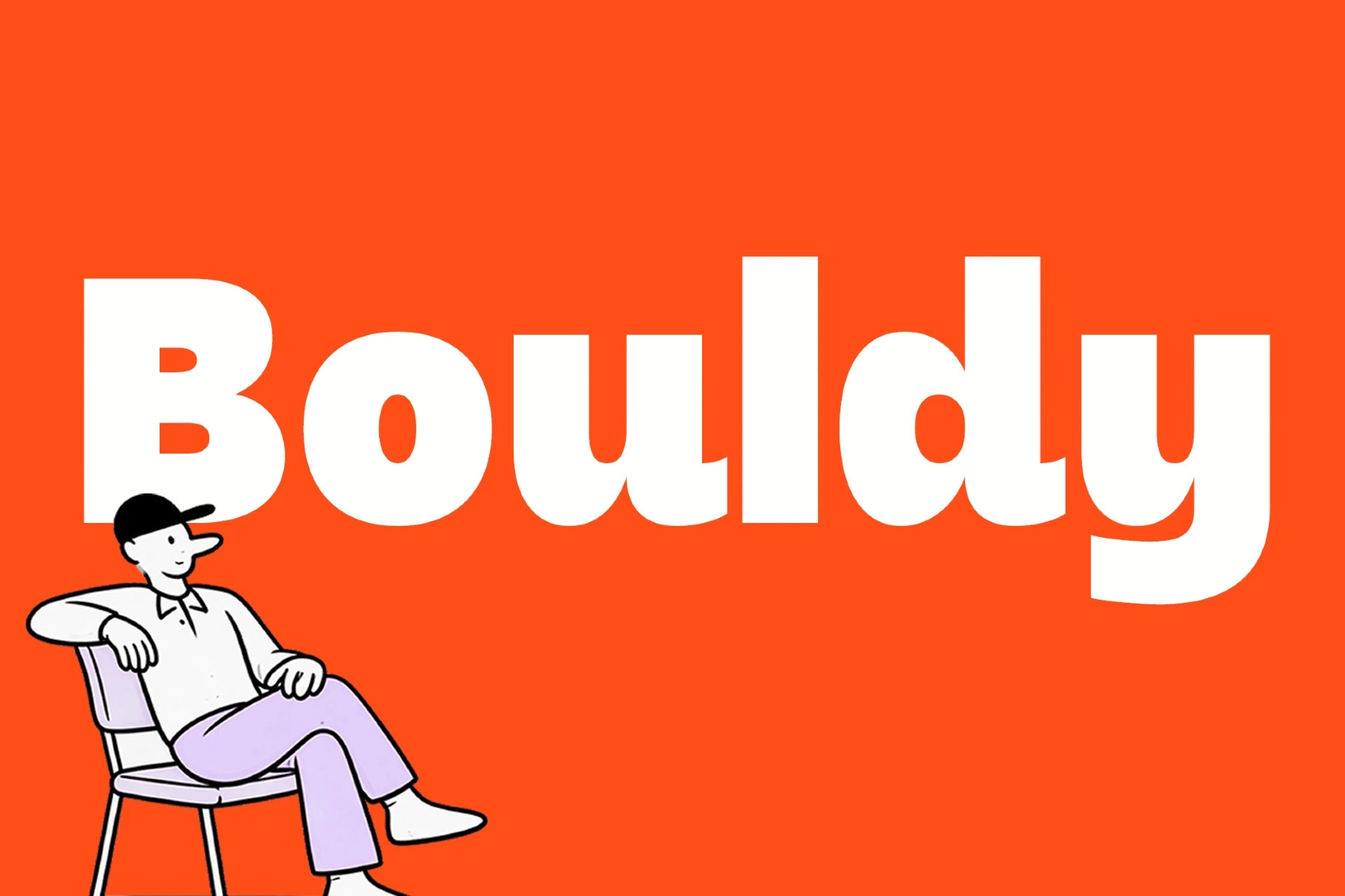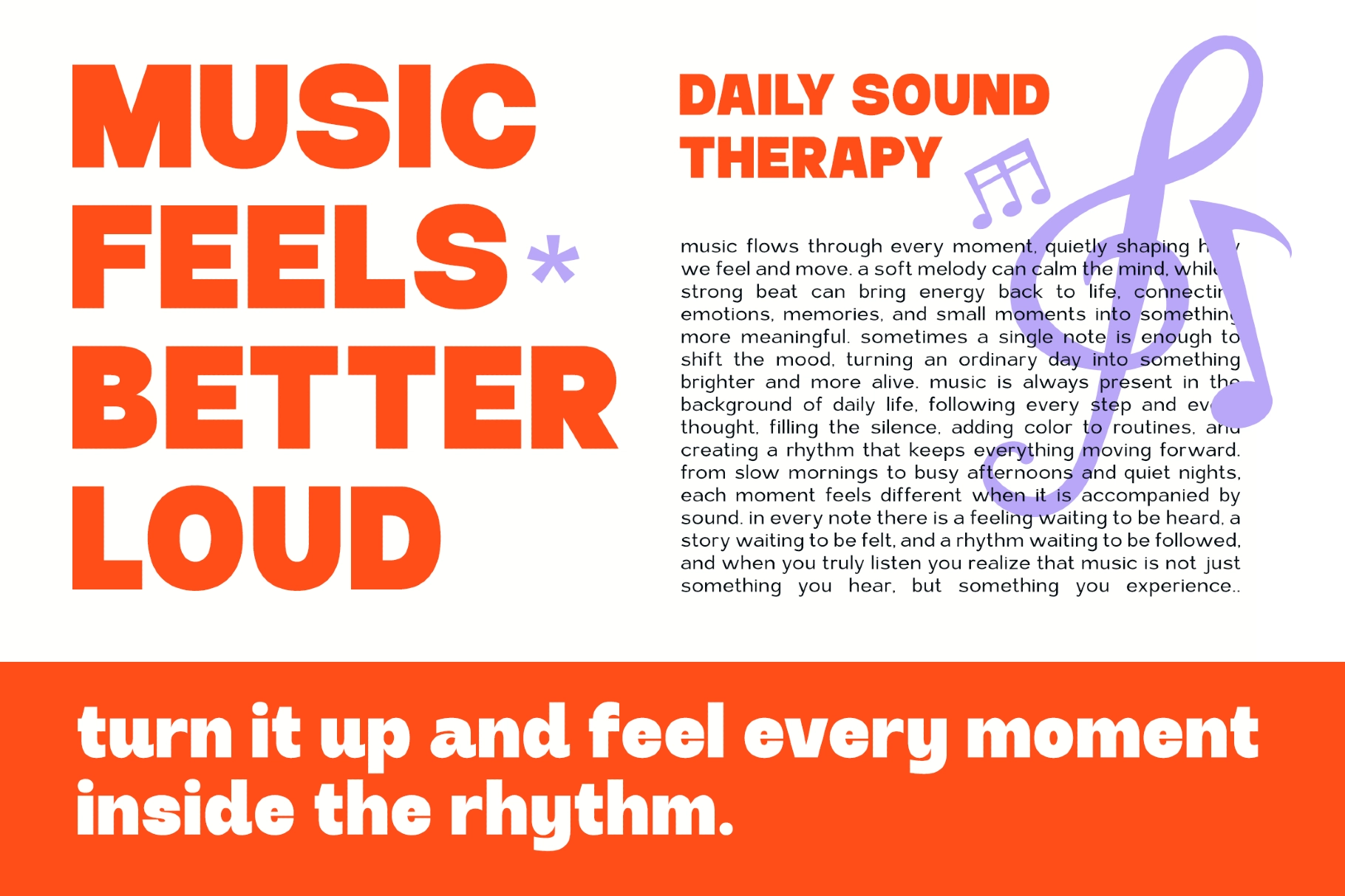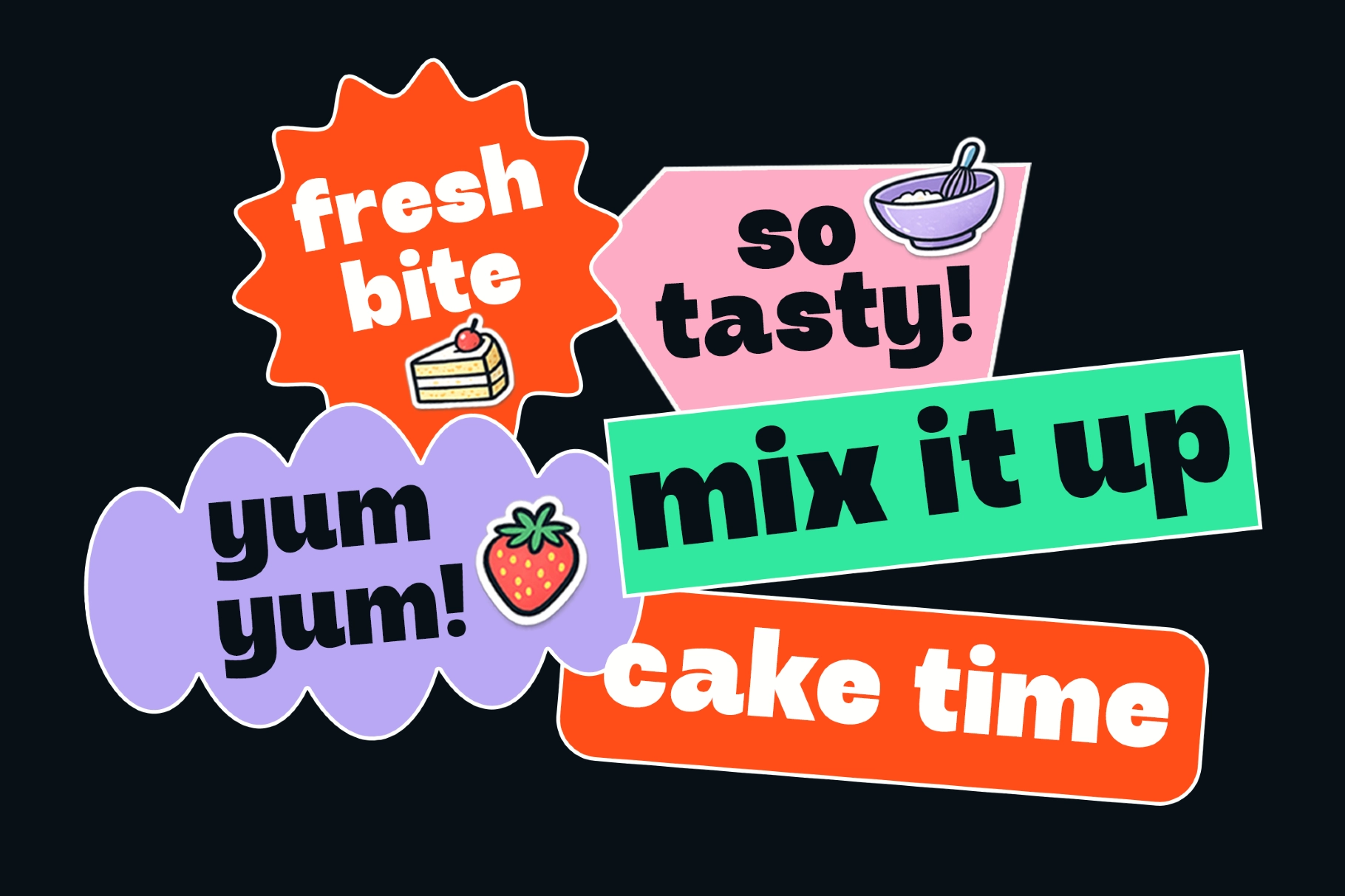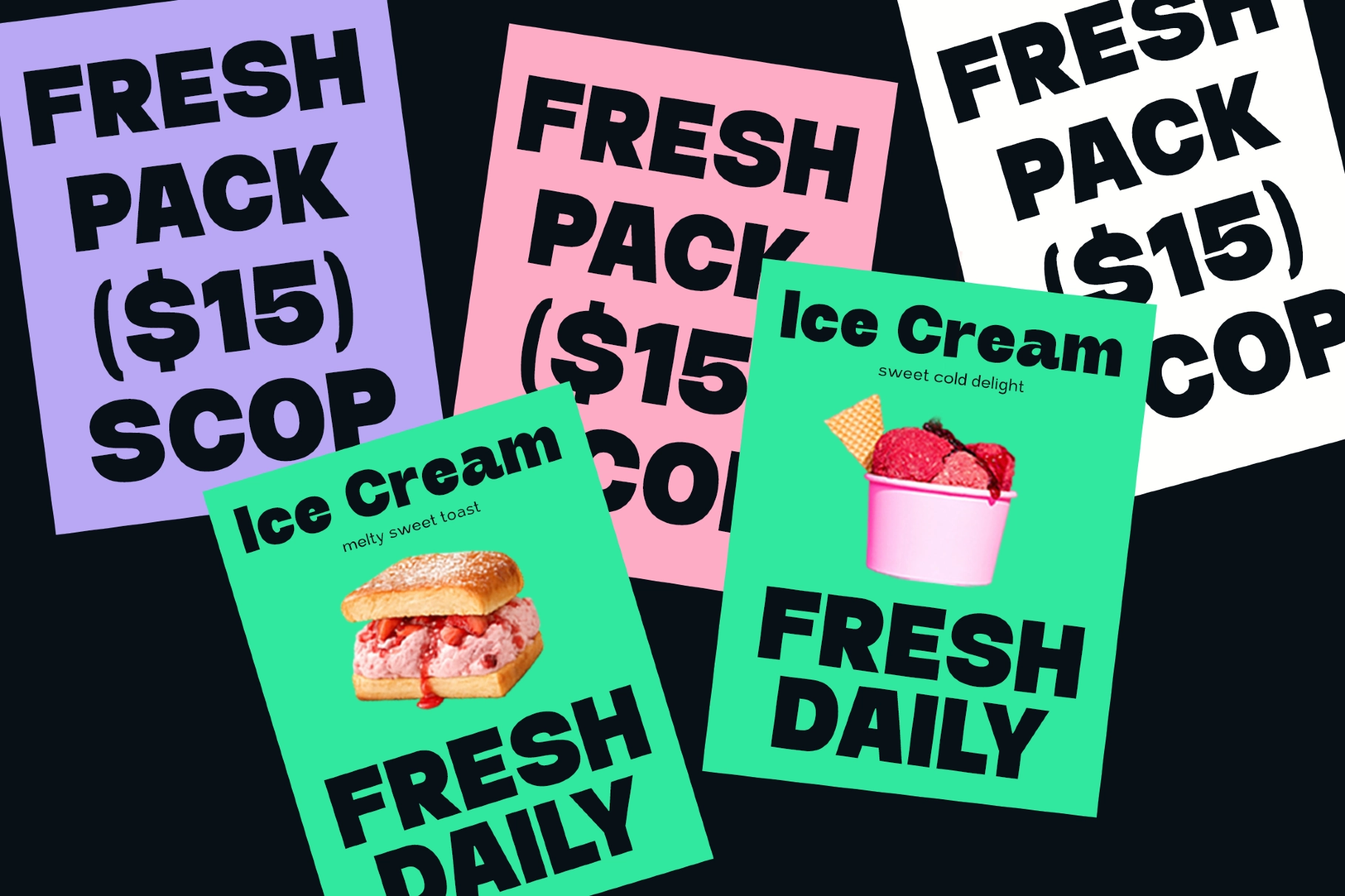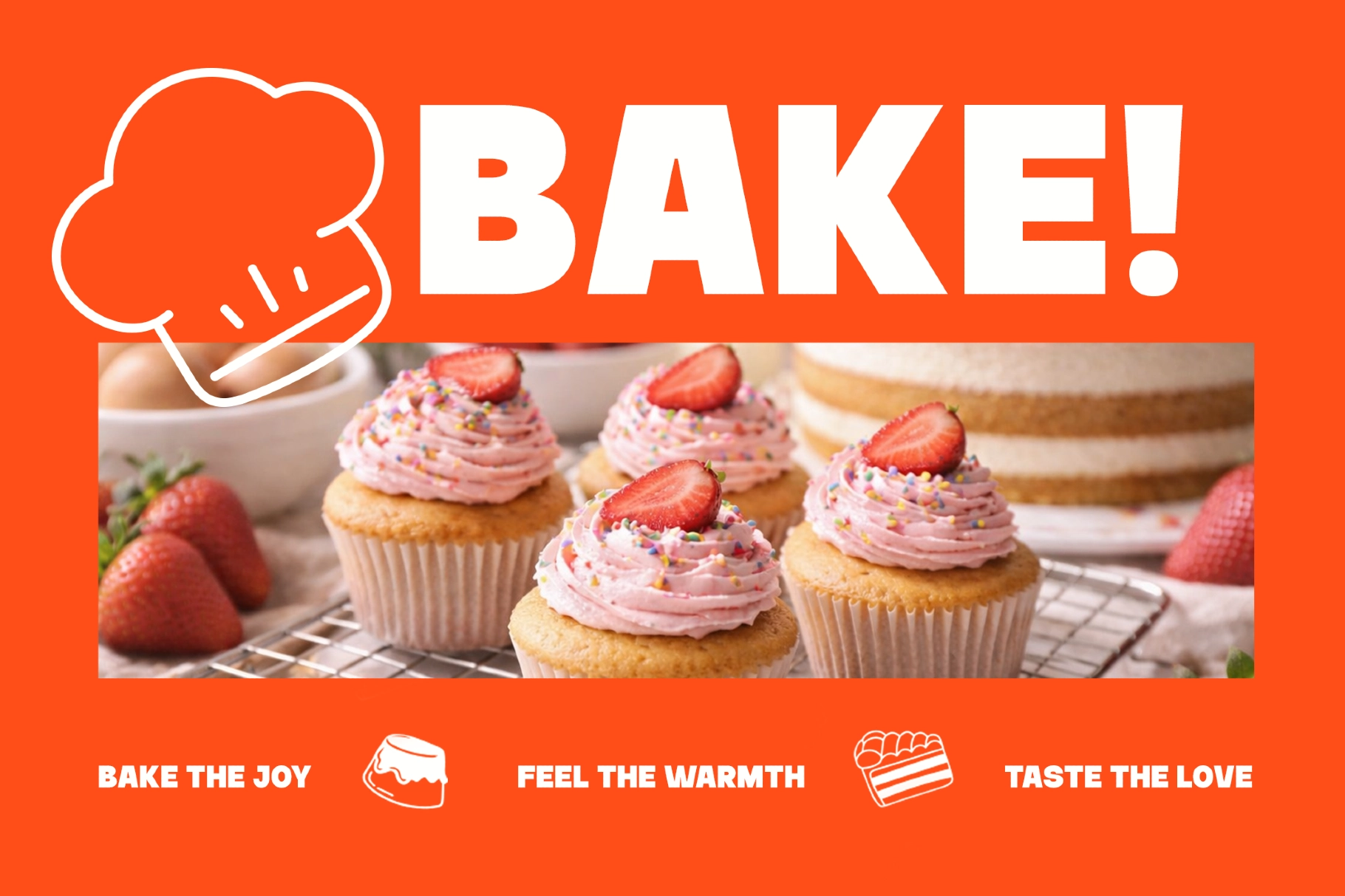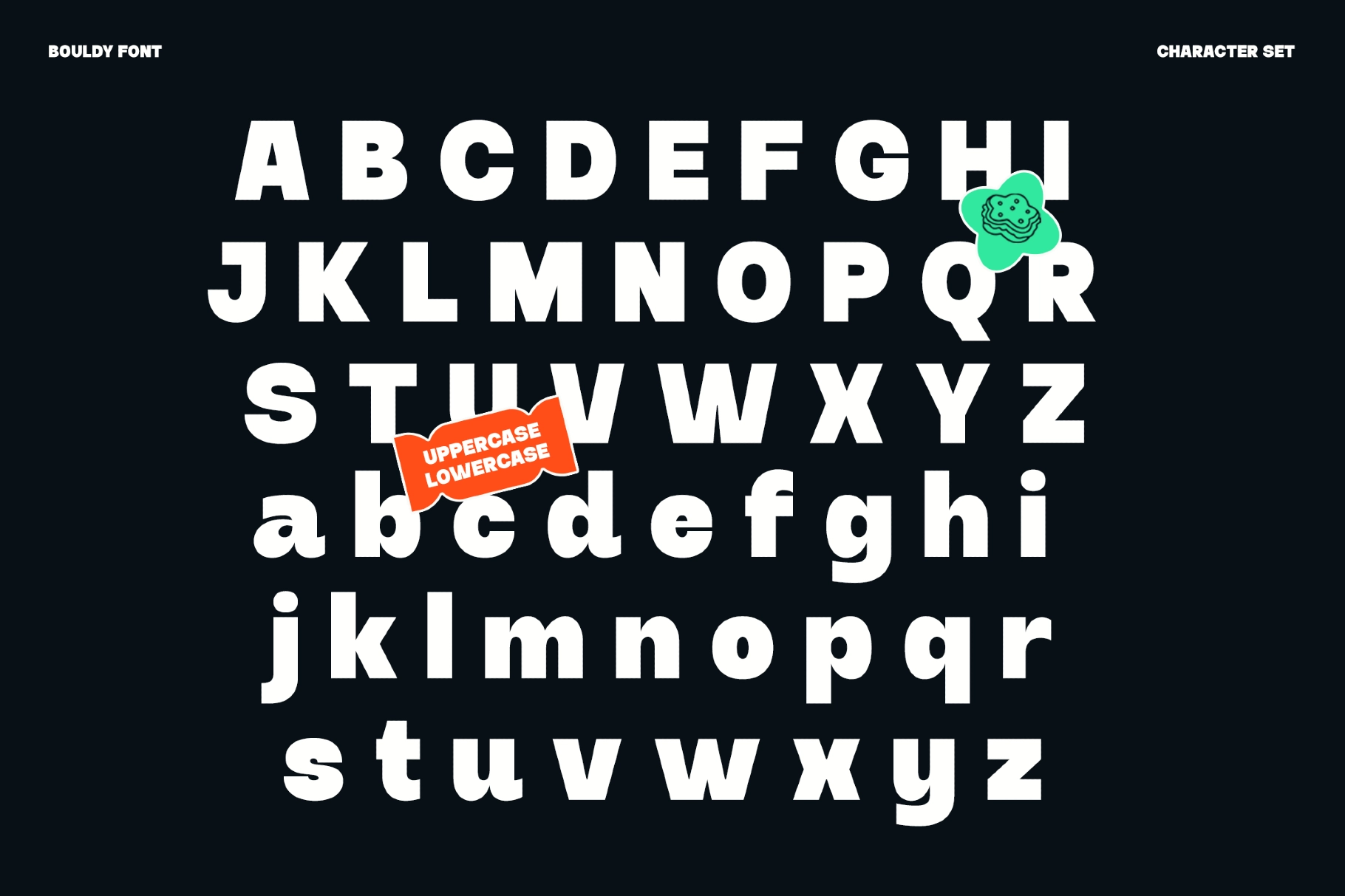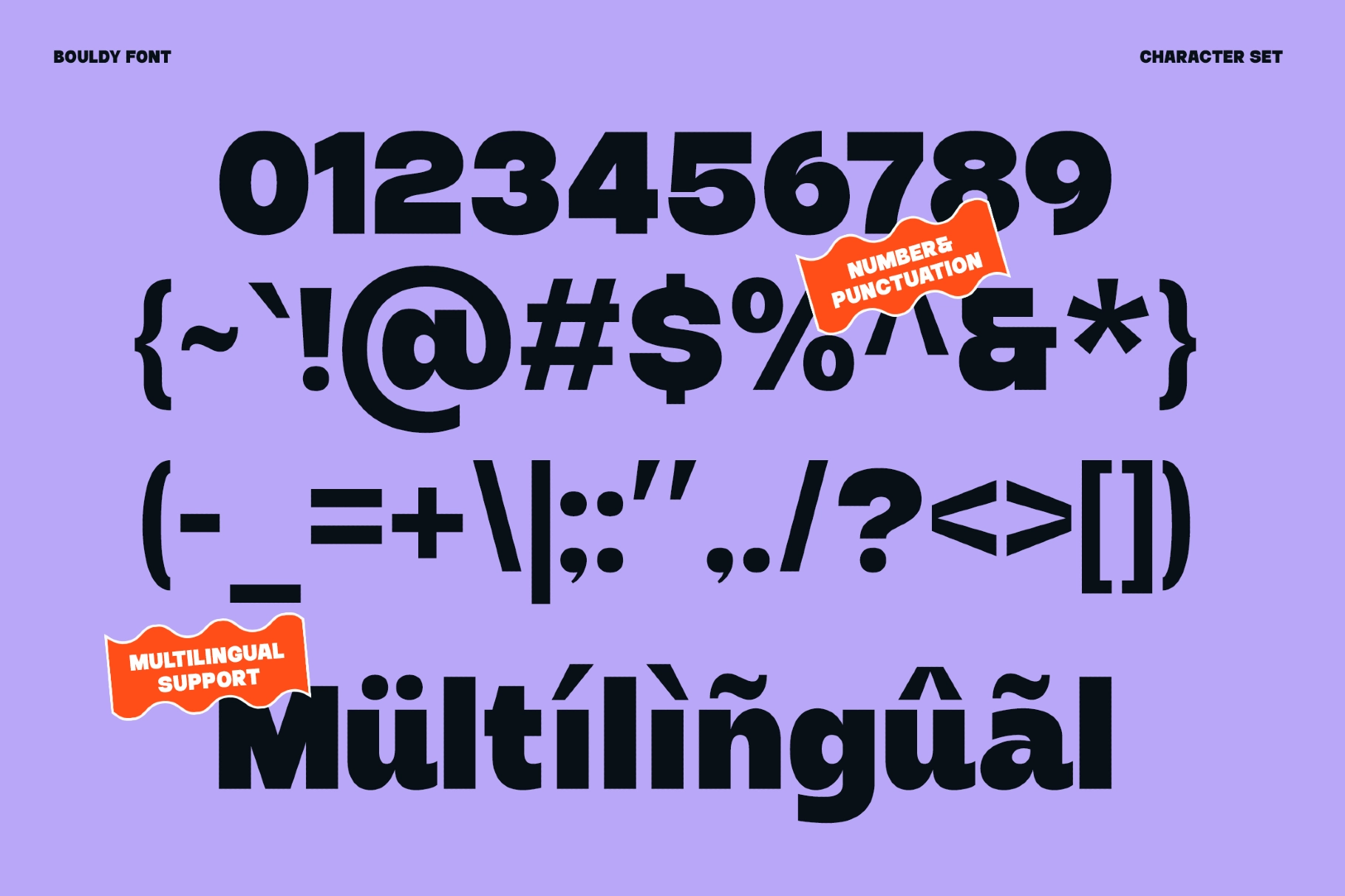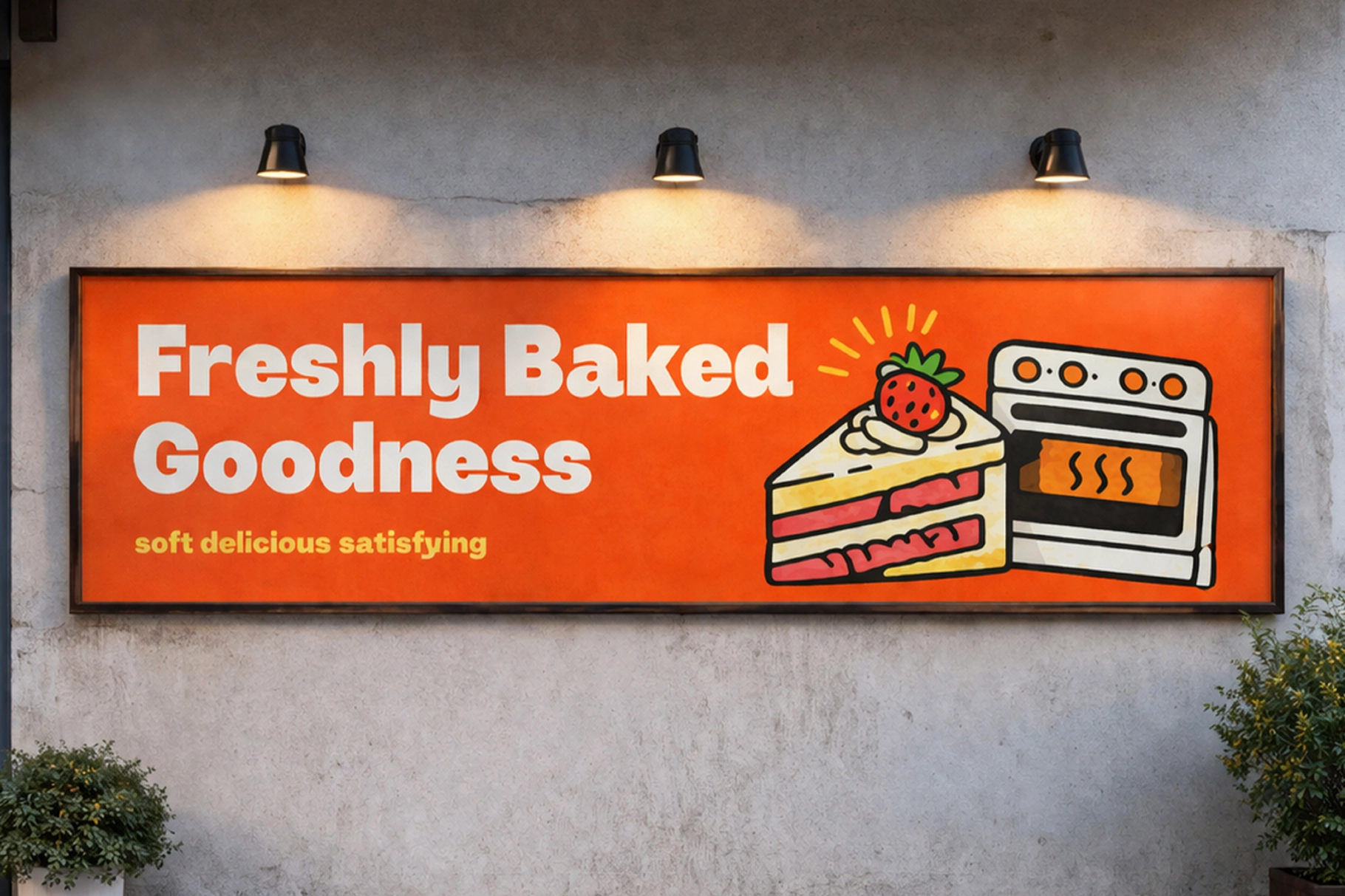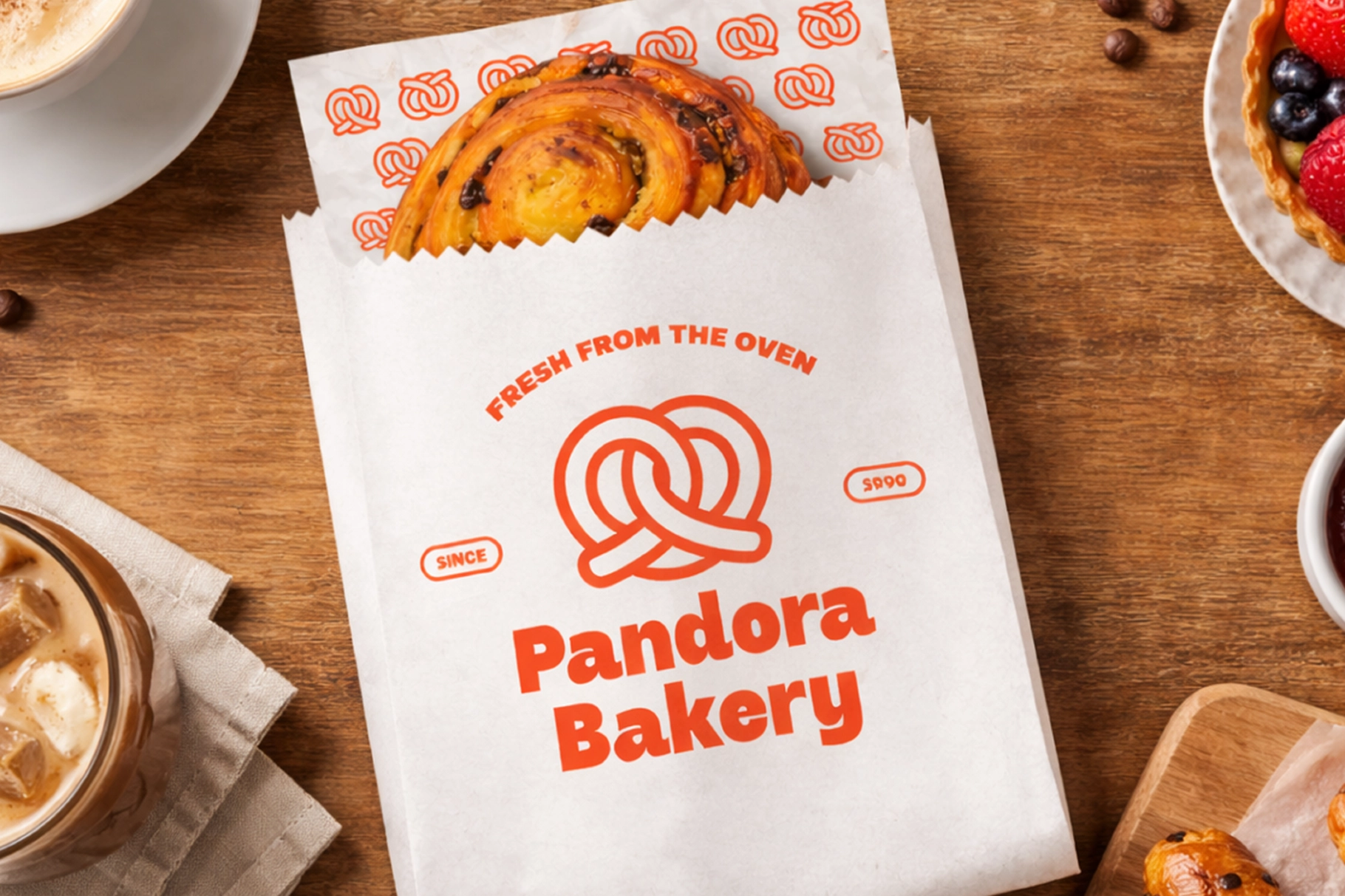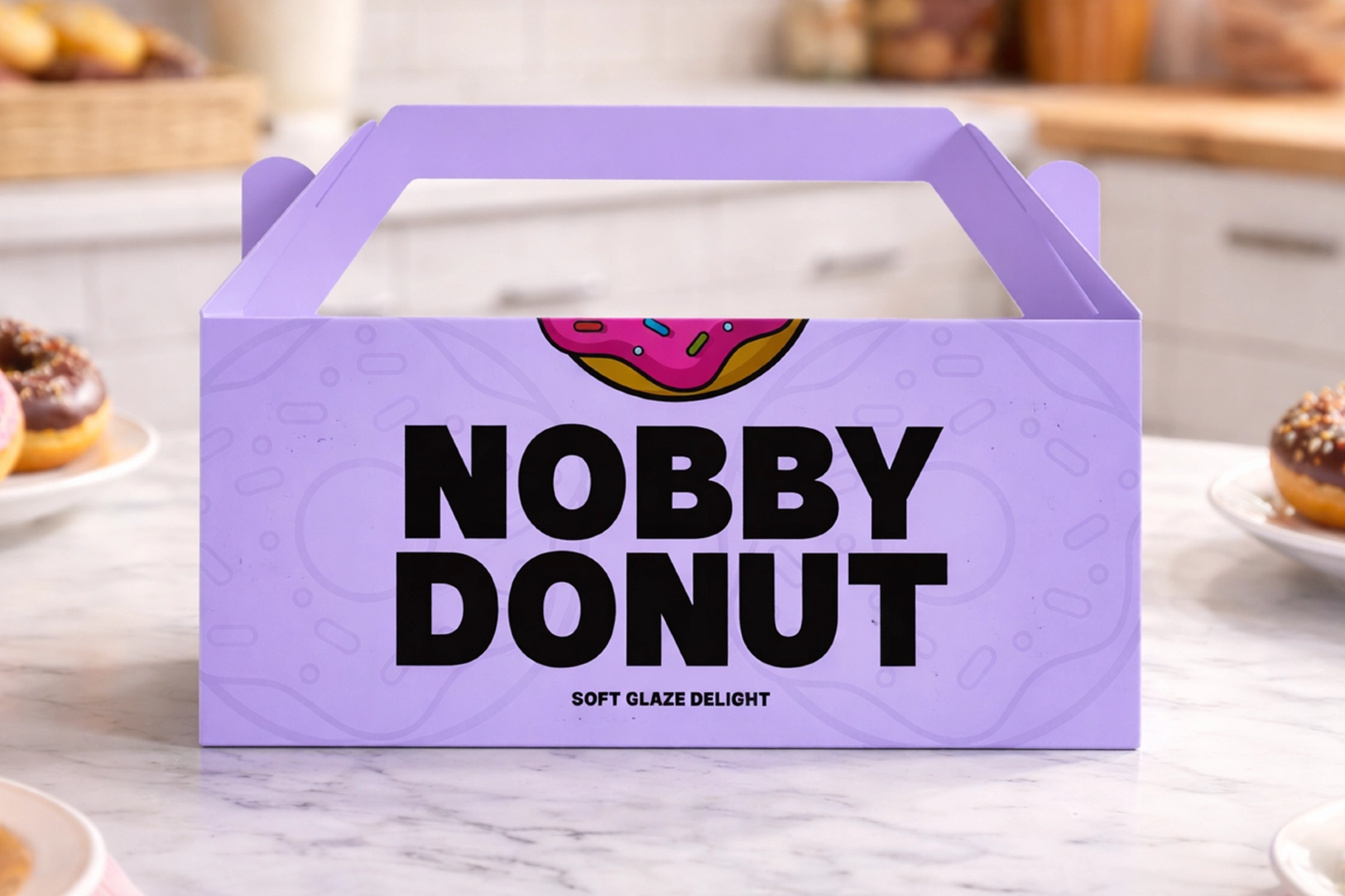
Bouldy - Bold Sans Serif Font
This bold sans serif has heavy letterforms, rounded corners, and a loud graphic voice that reads fast without losing its friendly character. The shapes are chunky and clean, with a playful edge that works well for layouts that need instant attention and a bit of charm.
Bouldy is a strong pick for food branding, café menus, product packaging, posters, social media graphics, event flyers, kids’ projects, stickers, merch prints, logo concepts, editorial headers, promo banners, and app visuals. It has the kind of volume that can carry a headline on its own, which is great news for designers and terrible news for shy typography.